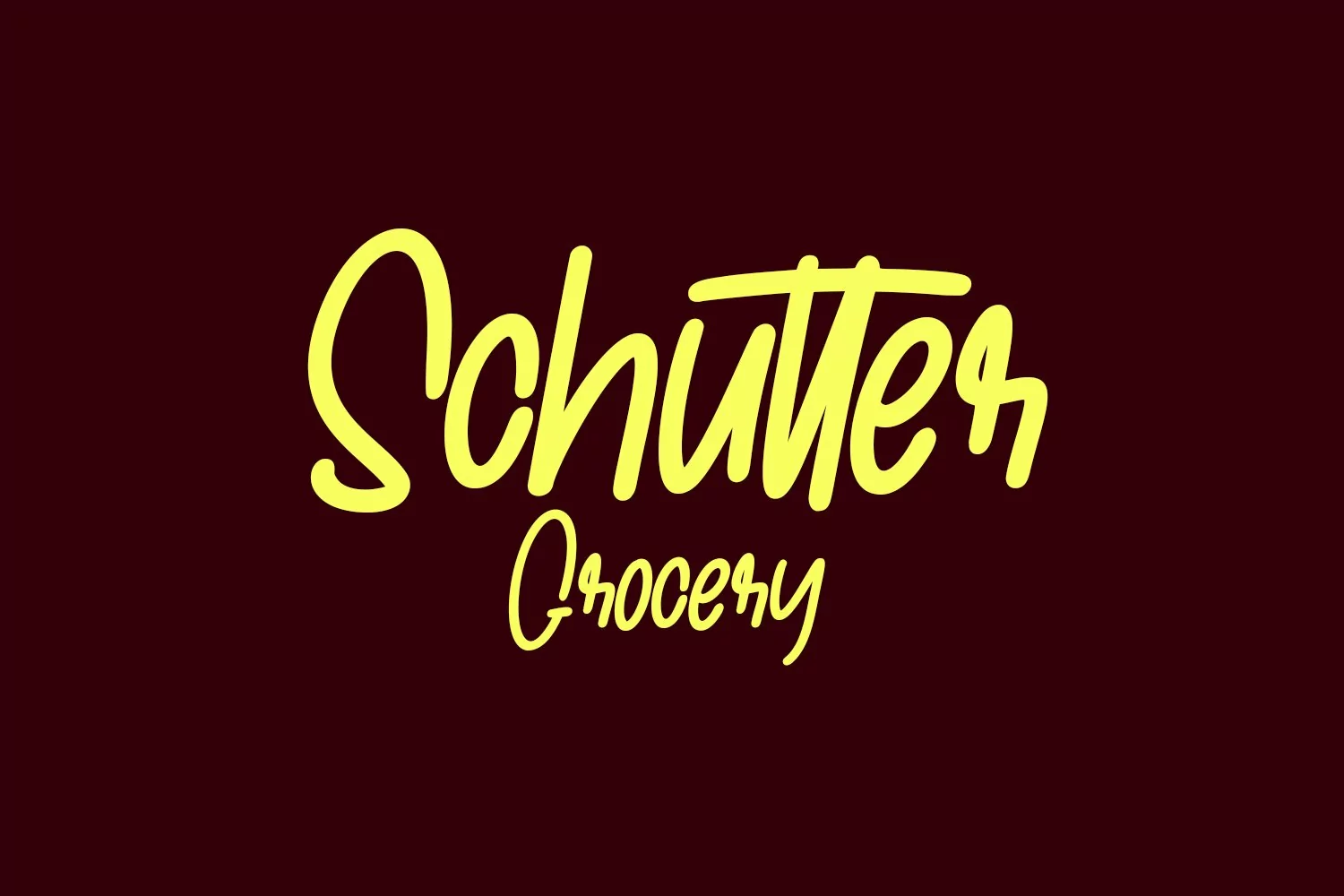
Golfrush is a casual handwritten font. With clean mono-line stroke, slant and fun character with a bit of ligatures. To give you an extra creative work. Golfrush font support multilingual more than 100+ language. This font is good for logo design, Social media, Movie Titles, Books Titles, a short text even a long text letter and good for your secondary text font with sans or serif. Make a stunning work with Golfrush font.